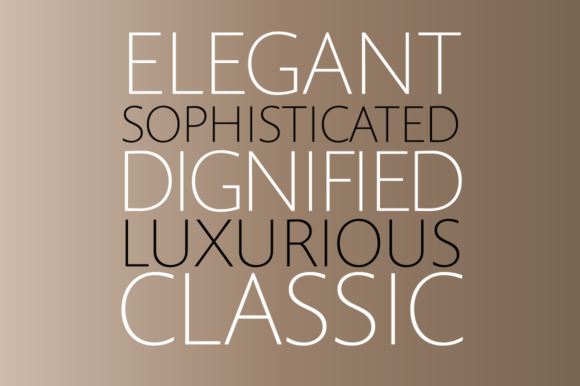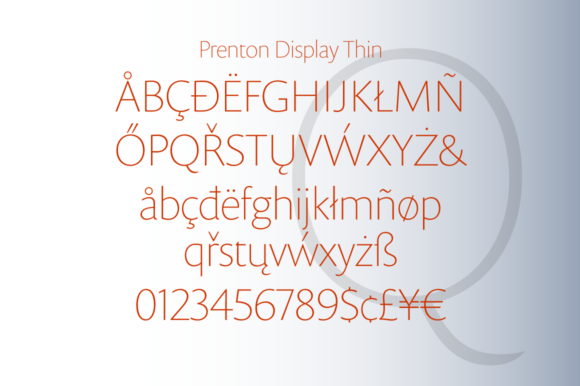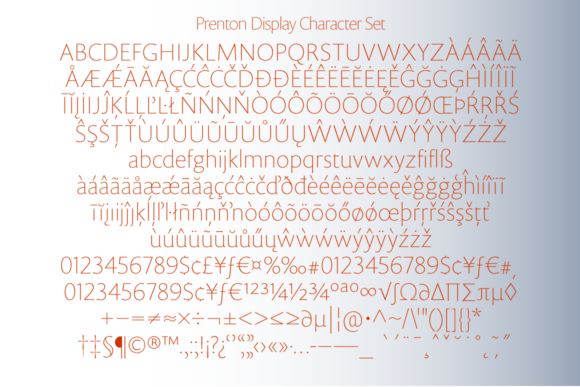
Introduction to Prenton Display Thin Font Font
Fonts play a crucial role in design, and the Prenton Display Thin Font font is a typeface that brings both character and versatility to any project. Whether you’re working on a branding project, a website, or a print design, the Prenton Display Thin Font font offers a unique style that can elevate your work.
Prenton is a thin lettered and modern sans serif font.
Suitable to a wide variety of designs due to its neat and simple style, this font has the potential to become your favorite go-to font, no matter the occasion .
Key Features of Prenton Display Thin Font Font
Why Choose Prenton Display Thin Font Font?
The Prenton Display Thin Font font is more than just a typeface – it’s a design tool that helps you communicate your message with style and clarity. Its unique character set and versatile design make it suitable for a wide range of applications, from elegant invitations to bold headlines.
With its carefully crafted letterforms and balanced proportions, the Prenton Display Thin Font font ensures readability and visual appeal across all mediums.
What makes Prenton Display Thin Font font special?
The Prenton Display Thin Font font stands out with its unique design, exceptional readability, and versatility across various design applications.